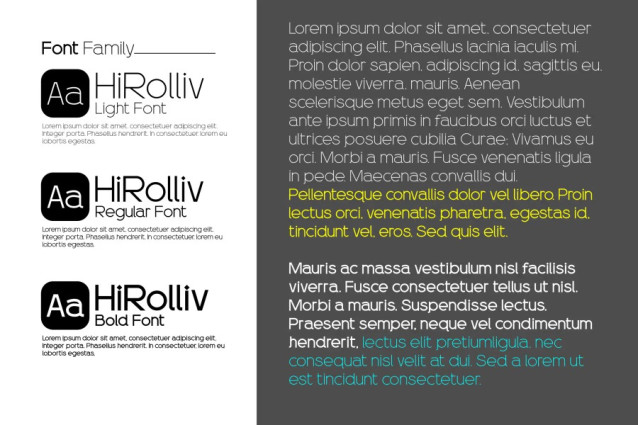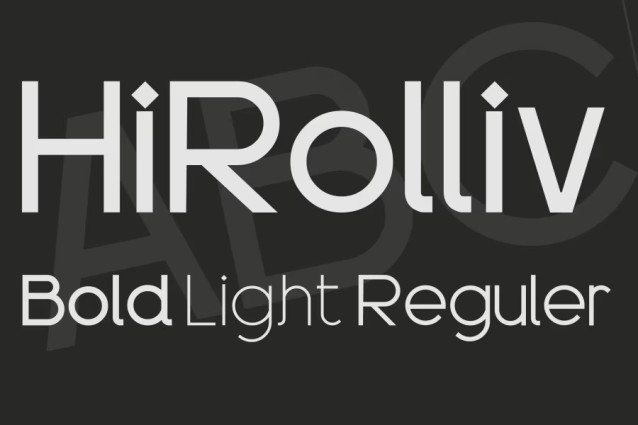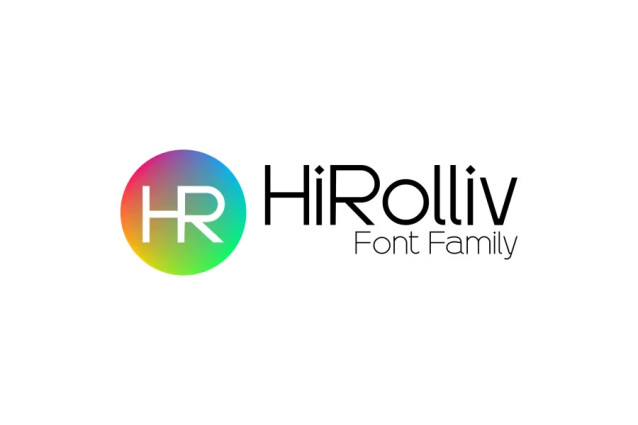
HiRolliv Font
HiRolliv Font – This is a modern sans-serif font, with thin bars and a minimalist style. The letters are of relatively even height, creating a sense of balance and ease of reading.
Notable features:
The uppercase and lowercase letters have a clear design, without serifs.
The spacing between letters is adjusted reasonably, bringing harmony to the overall text.
This font is suitable for designs that require sophistication, modernity and professionalism such as logos, titles, product packaging or media publications.